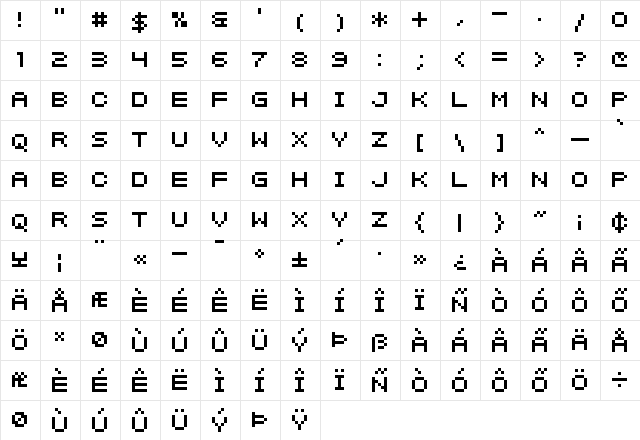
SF Intermosaic B Regular
| Foundry | ShyFoundry |
| Designer | Derek Vogelpohl |
Design Context for SF Intermosaic B Typeface
SF Intermosaic B offers clean, dependable letterforms without strong stylistic allegiance, making it a practical choice for designers who need flexibility.